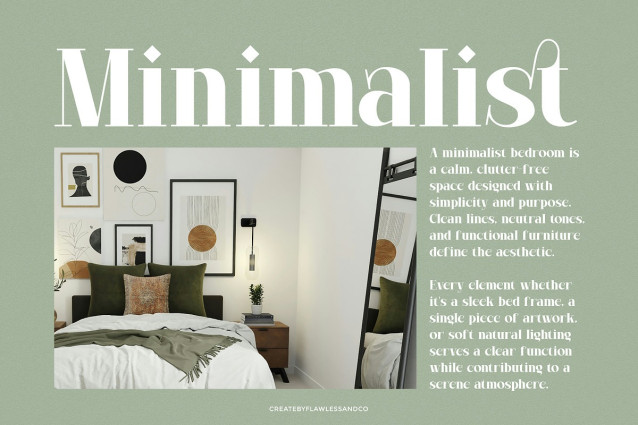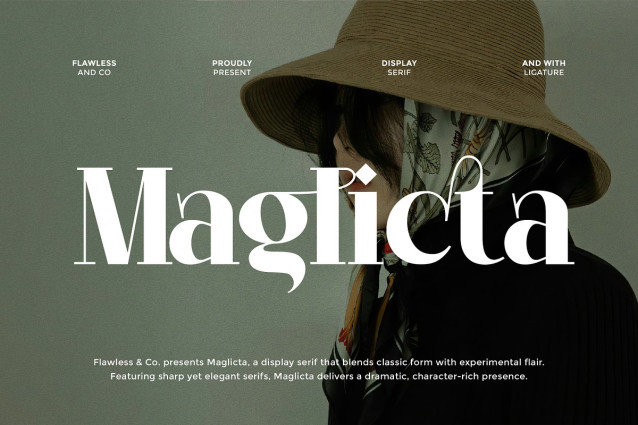
Maglicta Font
MAGLICTA Font is a striking serif display font that exudes sophistication and confidence. With its sharp contrasts, elegant curves, and bold presence, MAGLICTA is made to stand out in any visual composition. Perfect for designers seeking a luxurious and timeless typeface, MAGLICTA blends classic charm with a modern twist. Whether you’re crafting high-end branding, editorial layouts, or standout logo designs, MAGLICTA delivers refined elegance and impactful style in every letterform.